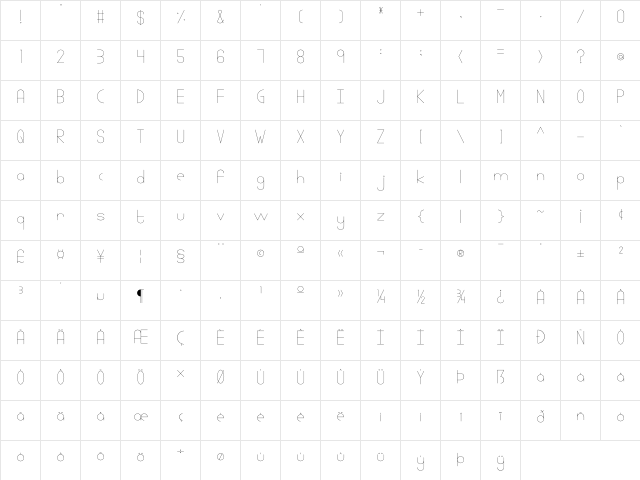
Linlegrey regular
Design Context for Linlegrey Typeface
Linlegrey takes a measured approach to typography — its balanced proportions and neutral character make it a reliable workhorse for both digital and print work.
Pro Tip: Pair Linlegrey with a font of contrasting weight or personality to build a more expressive typographic hierarchy.